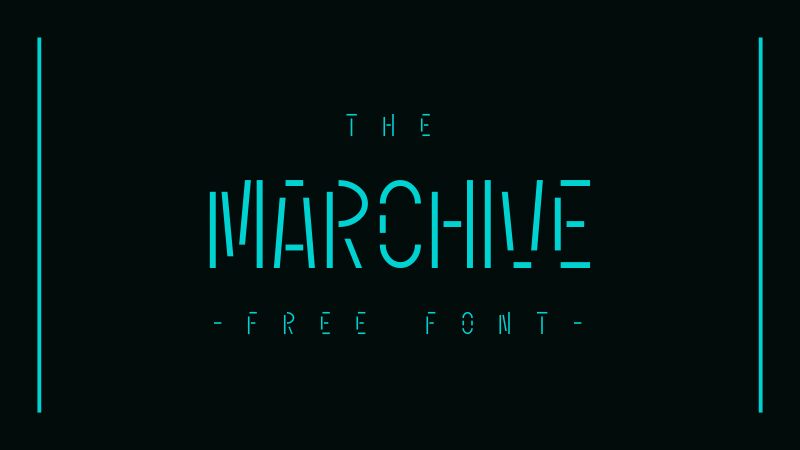
Marchive font family designed by GGBotNet contains 2 font styles. This techno font family beautifully balances between the futuristic and the minimalist, exploring a geometric structure with fragmented characters. Free to use in any way you like, this font delivers a unique modern design that can be eye-catching or subtle depending on the size used.
It’s easy to download this family which you can use to create contemporary digital interfaces or tech-themed branding projects. You can also easily imagine it on posters, book covers, or even product packaging to showcase the amazing curves worked into the characters and the legible dashing designs.
With each and every character of this font having been artificially constructed, Marchive is a free font masterpiece sans precedent!